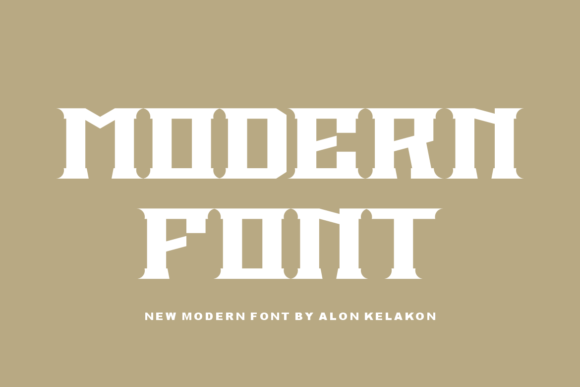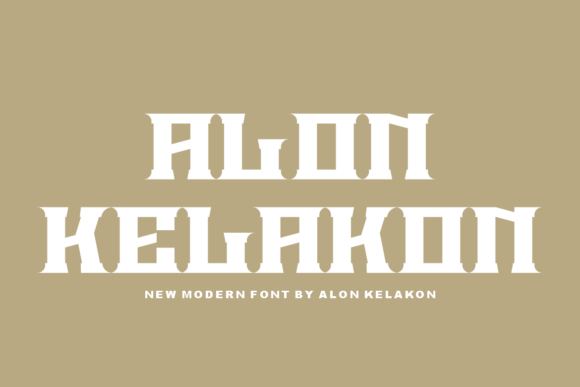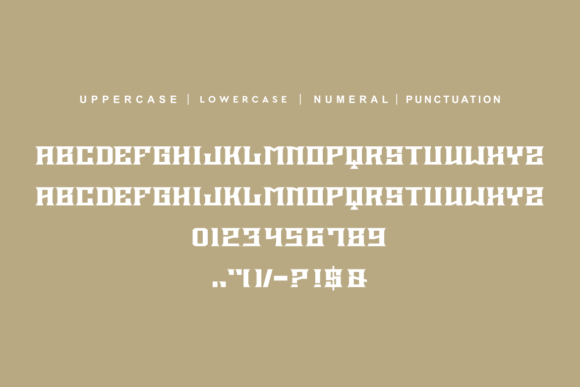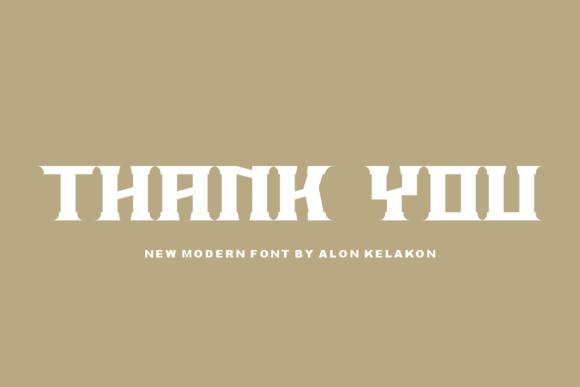
Introduction to Reqzak Font
Reqzak is a unique serif font ready to use for your design like labeling, clothing, movie scenes, posters, movie titles, gigs, album covers, logos, and much more.
Key Features of Reqzak Font